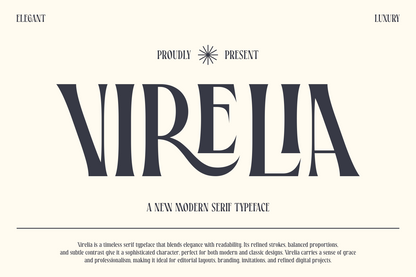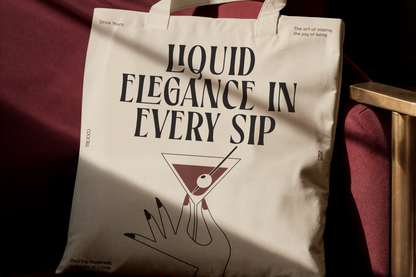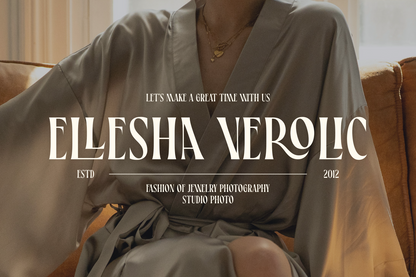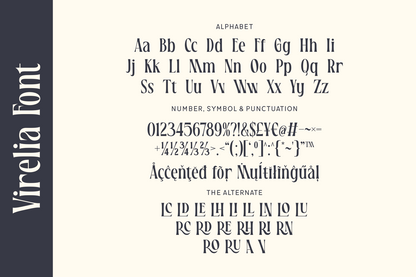
Virelia is a timeless serif typeface that blends elegance with readability. Its refined strokes, balanced proportions, and subtle contrast give it a sophisticated character, perfect for both modern and classic designs. Virelia carries a sense of grace and professionalism, making it ideal for editorial layouts, branding, invitations, and refined digital projects.
Each letterform is thoughtfully shaped to bring clarity and character to your text, whether in print or on screen. With Virelia, your typography will always speak with polish and poise.